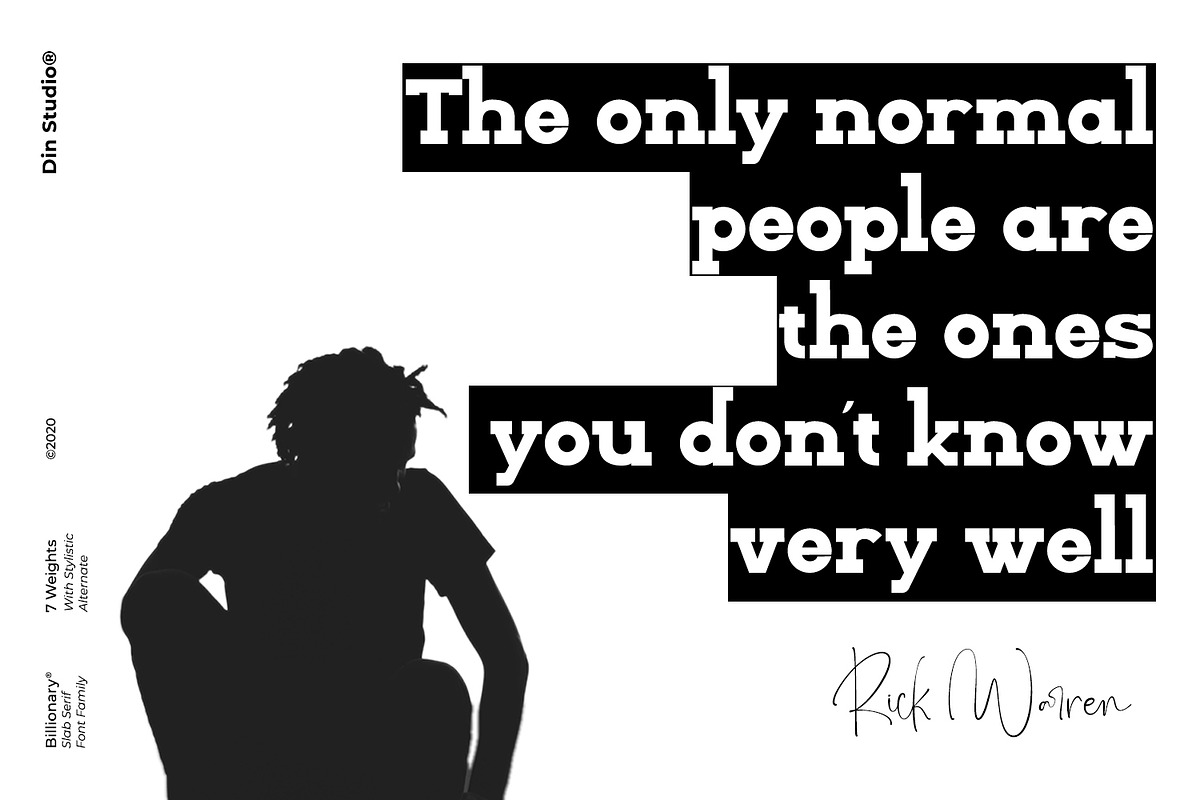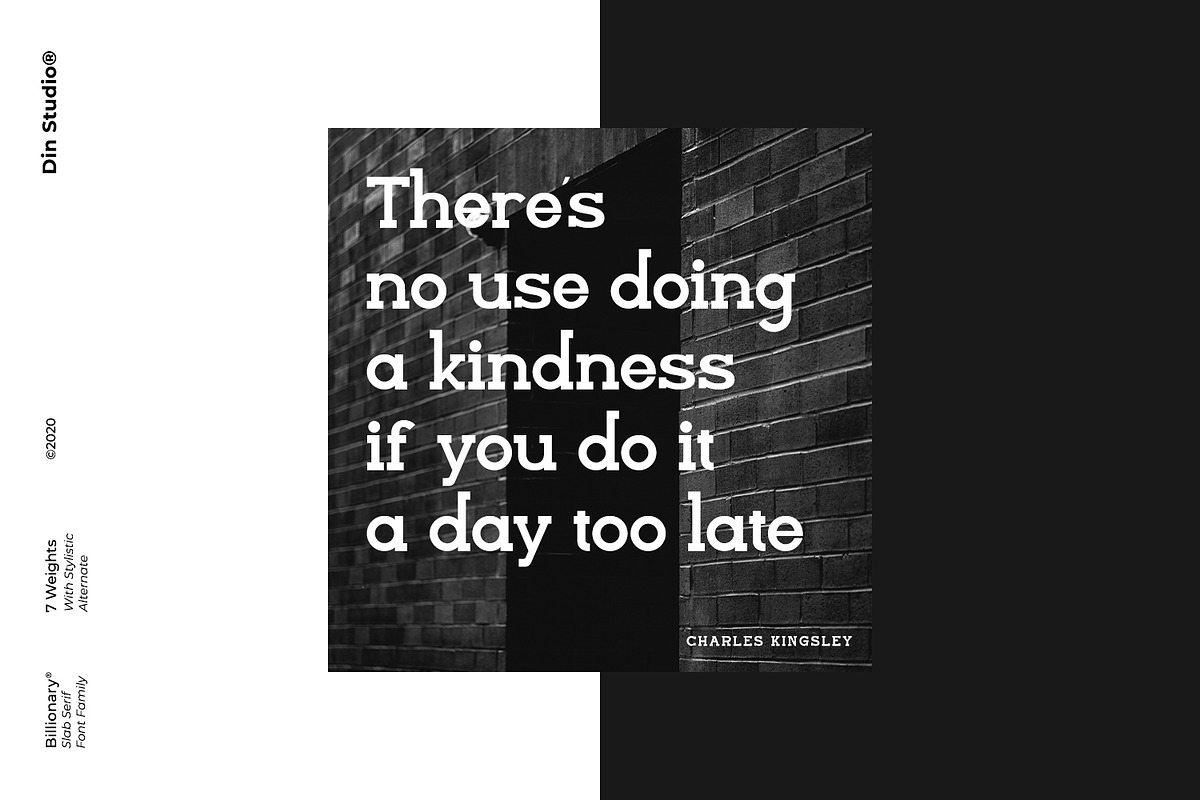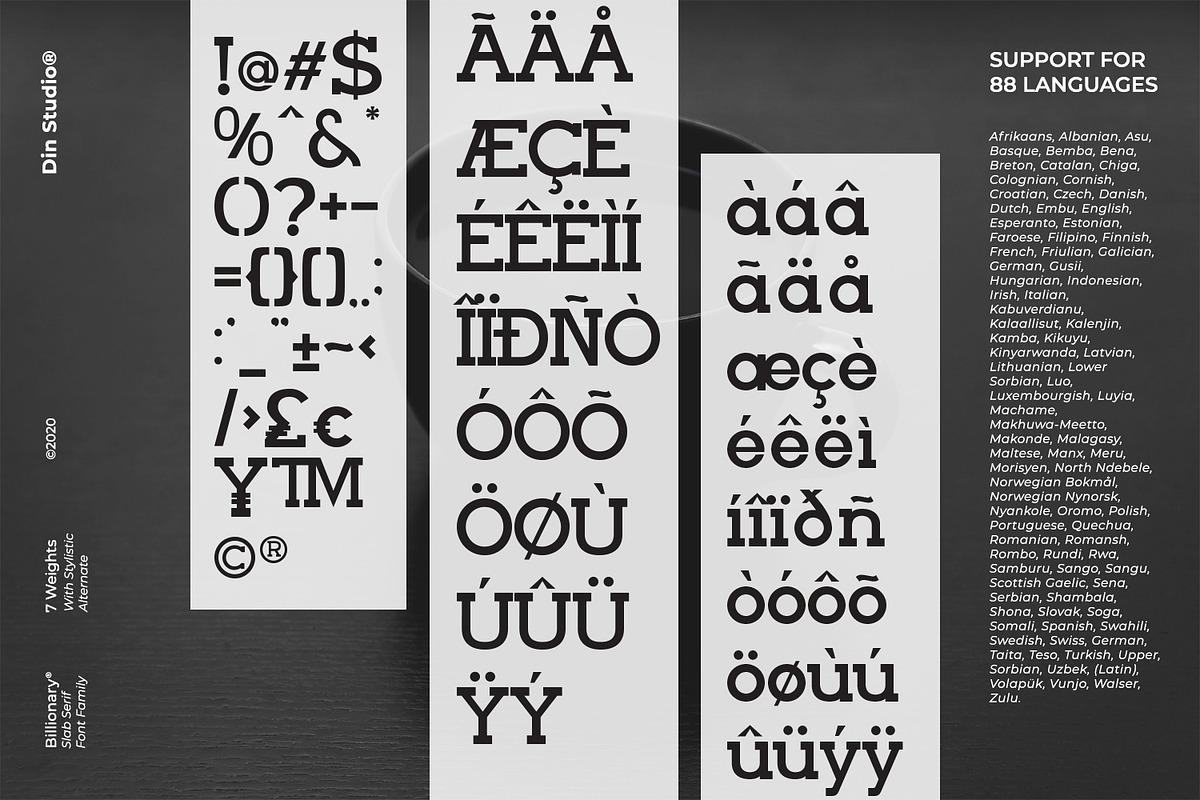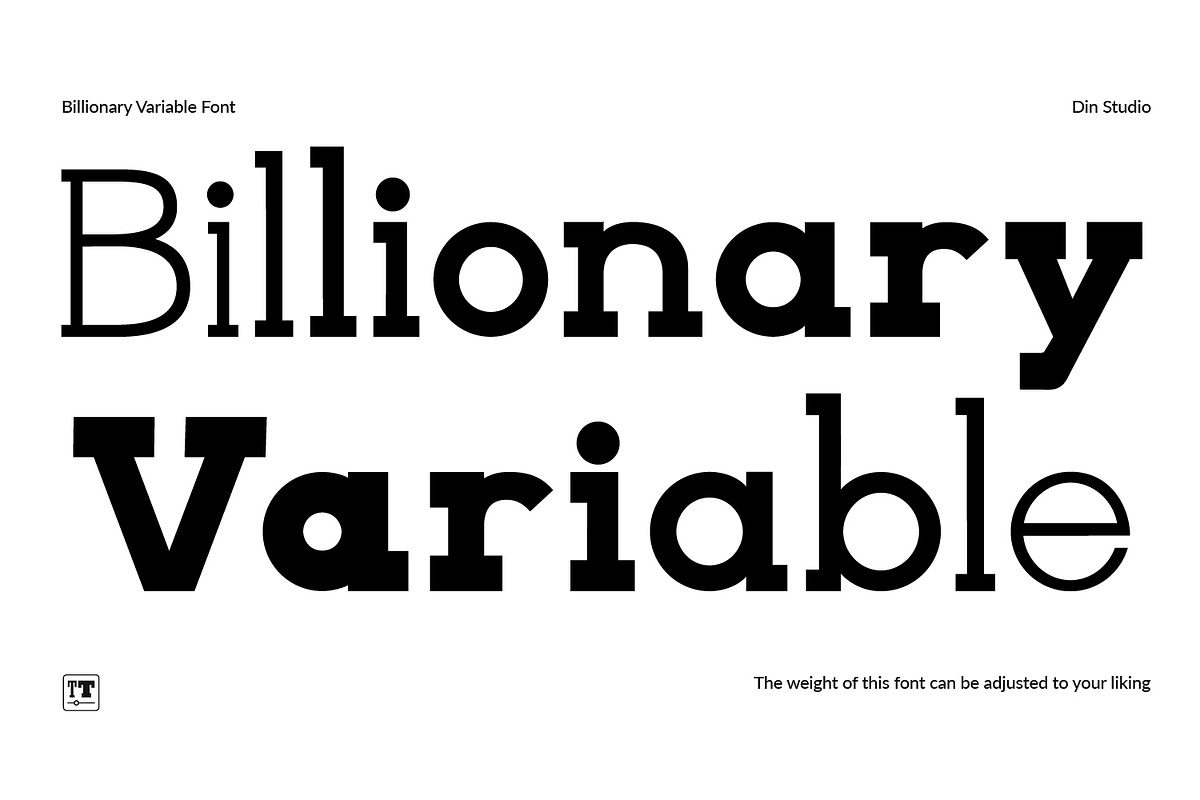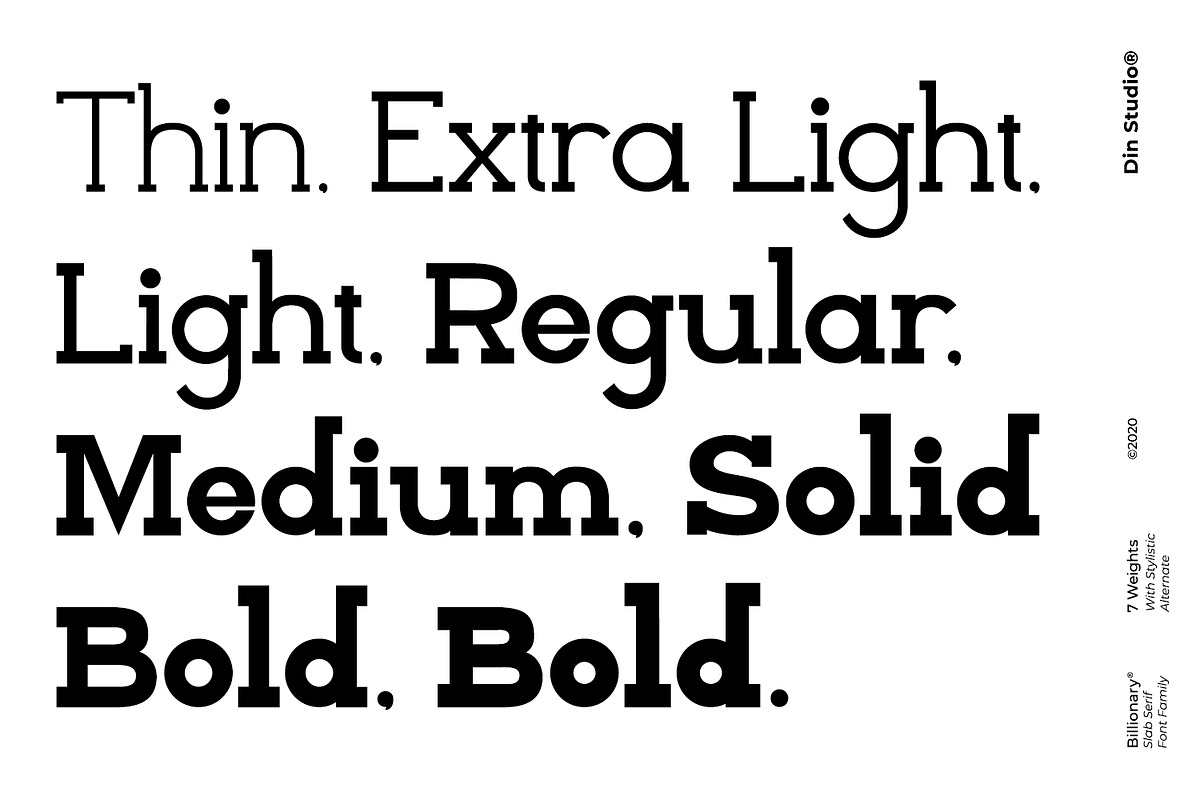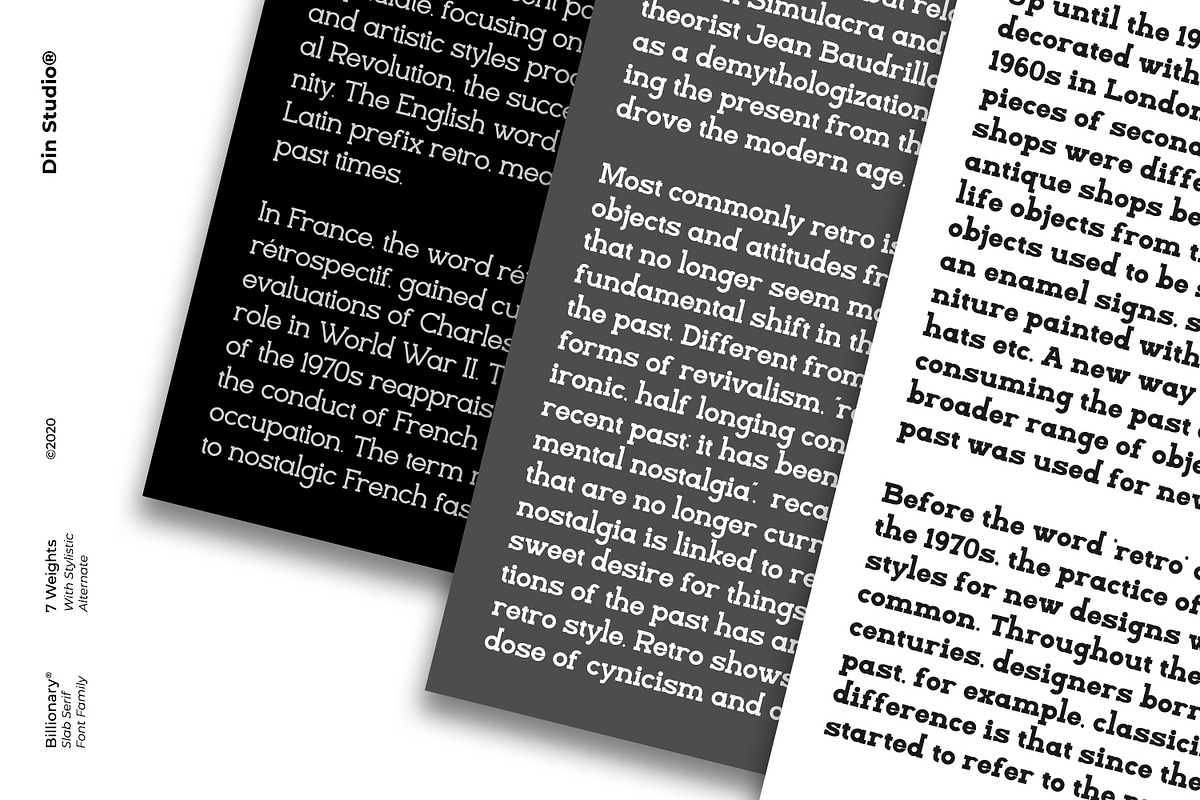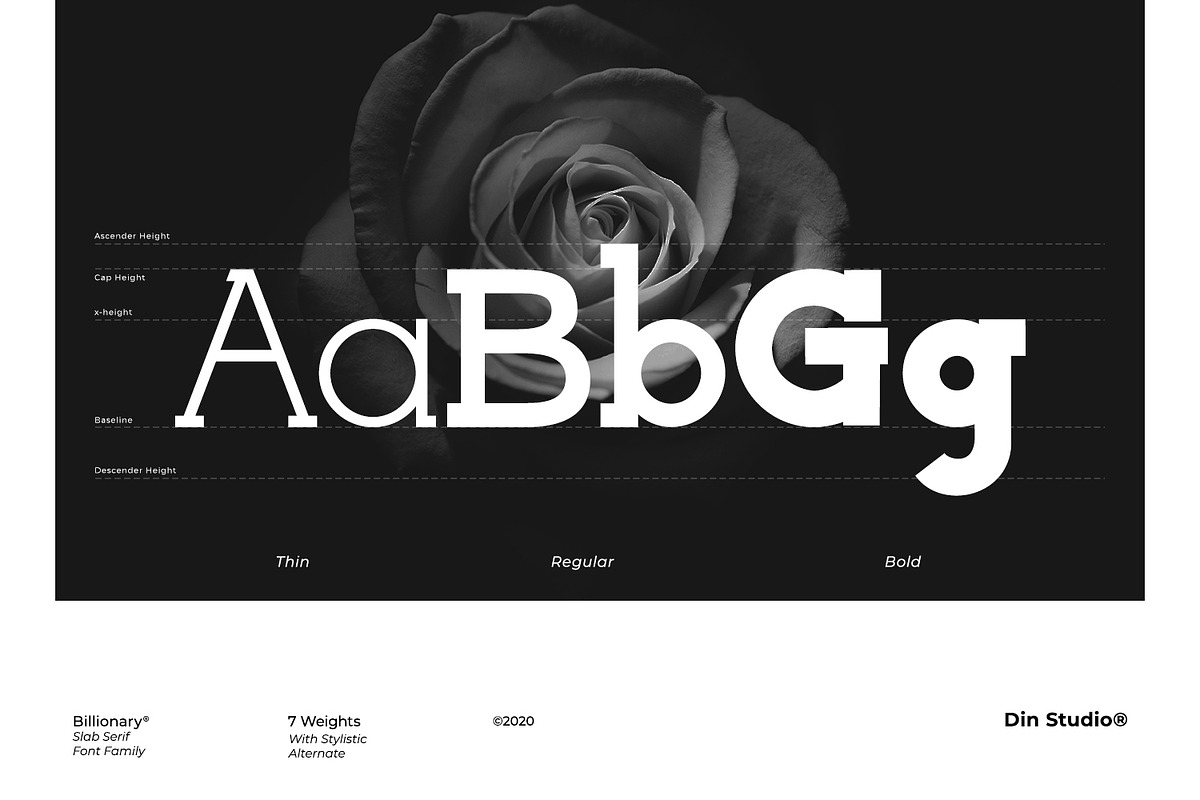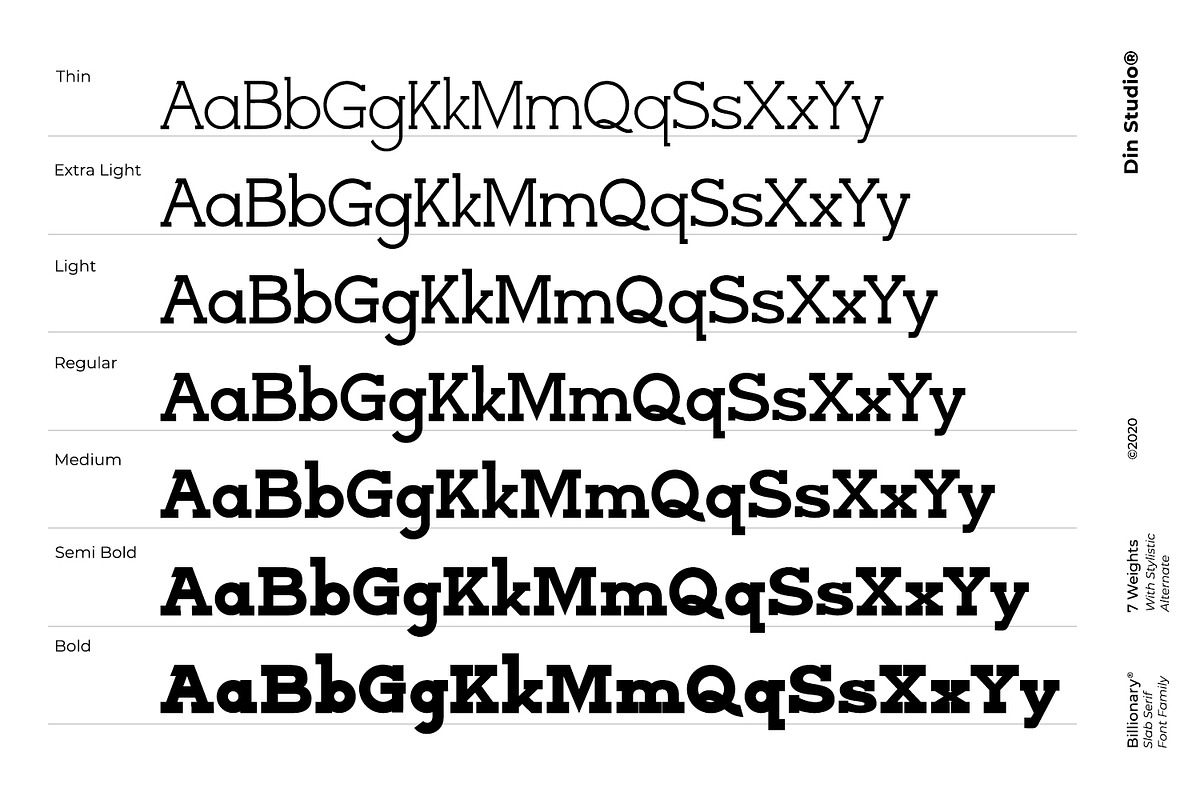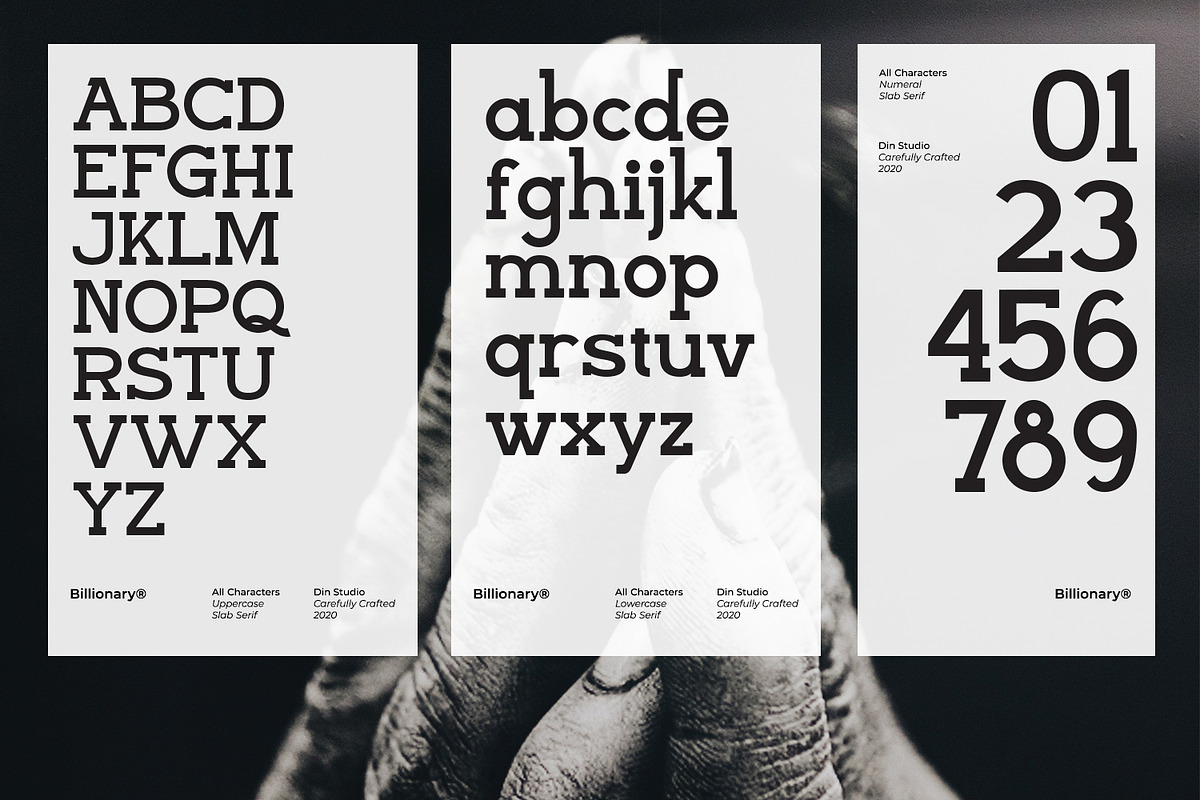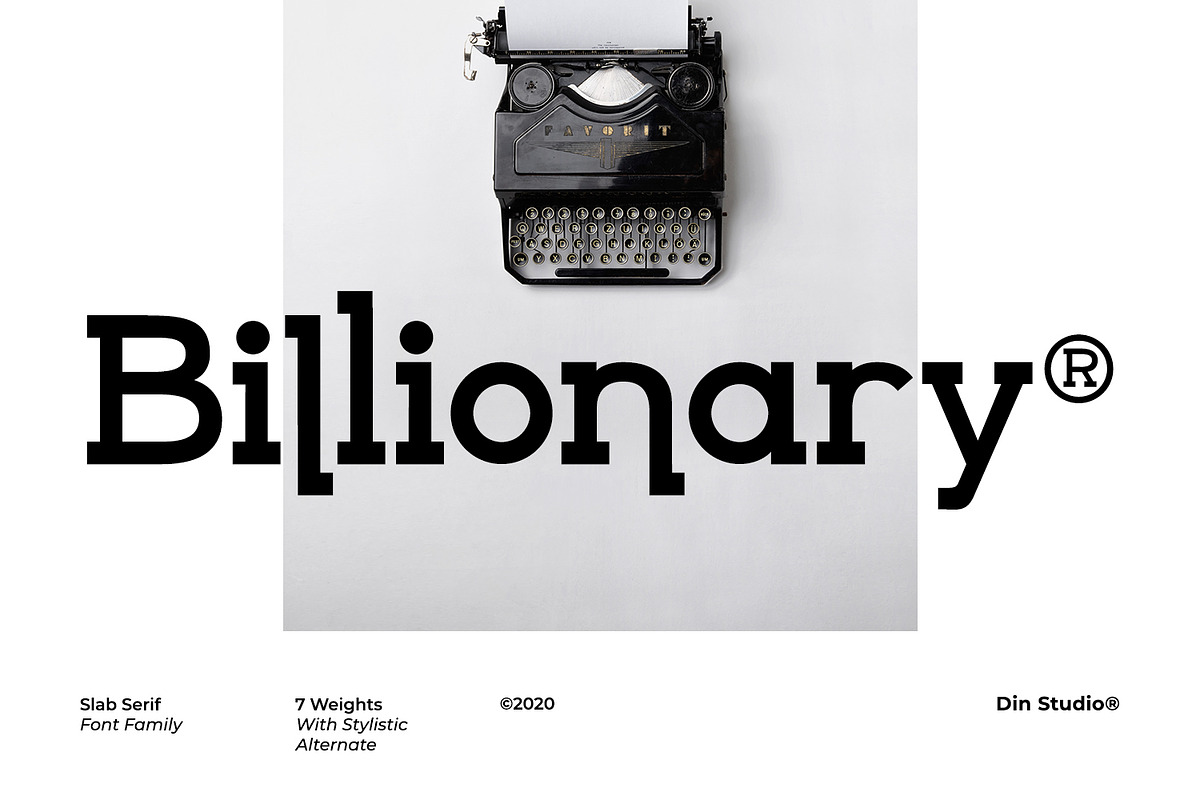
Billionary
Hi, Everyone! Want a font to make your branding bold? Looking for a font that exudes fabulous, style, and adventure? Then you’re in the right path. Introducing Billionary – A Slab Serif Font Family
A package that will delight you. With this family you will get many options to captivate, engage, and inspire your audience and clients. This fonts can be used for a host of different content needs and projects. Perfect for social media branding projects, fashion designs, printed quotes, packaging, or even as a stylish text overlay to any background image.
- Billionary Thin
- Billionary Extra Light
- Billionary Light
- Billionary Regular
- Billionary Medium
- Billionary Semi Bold
- Billionary Bold